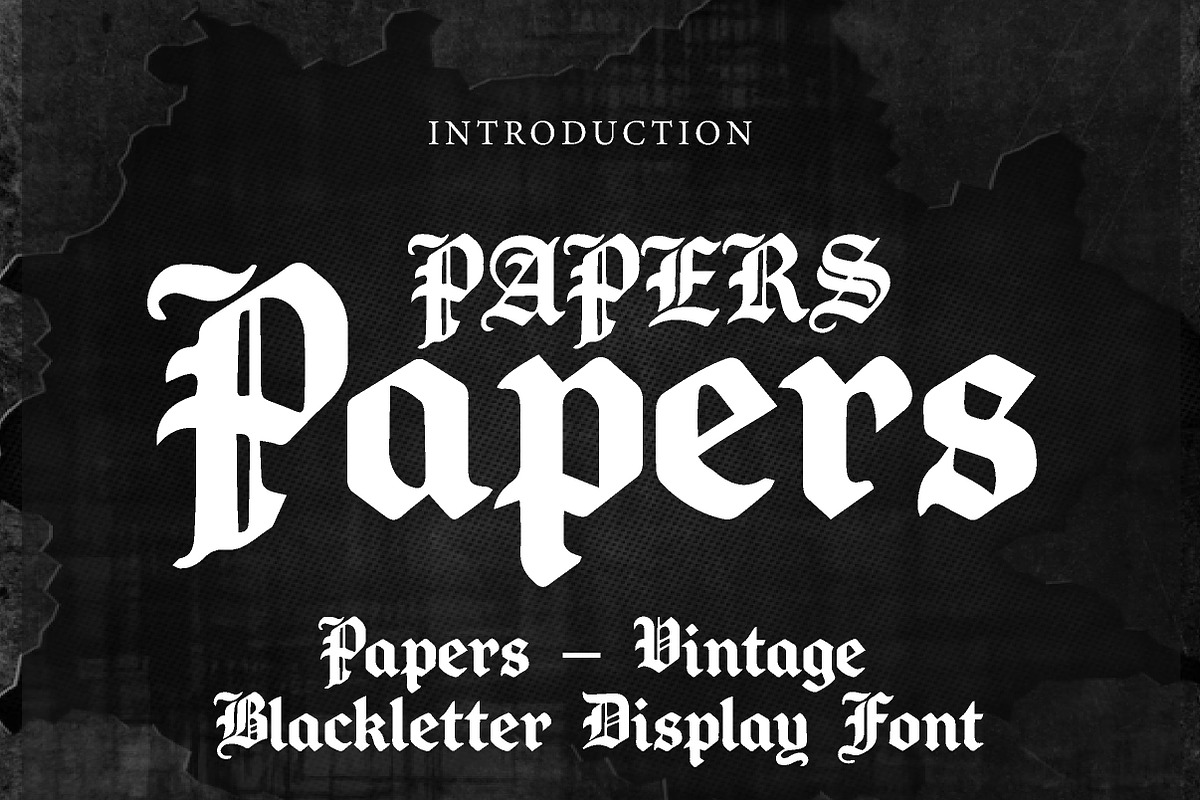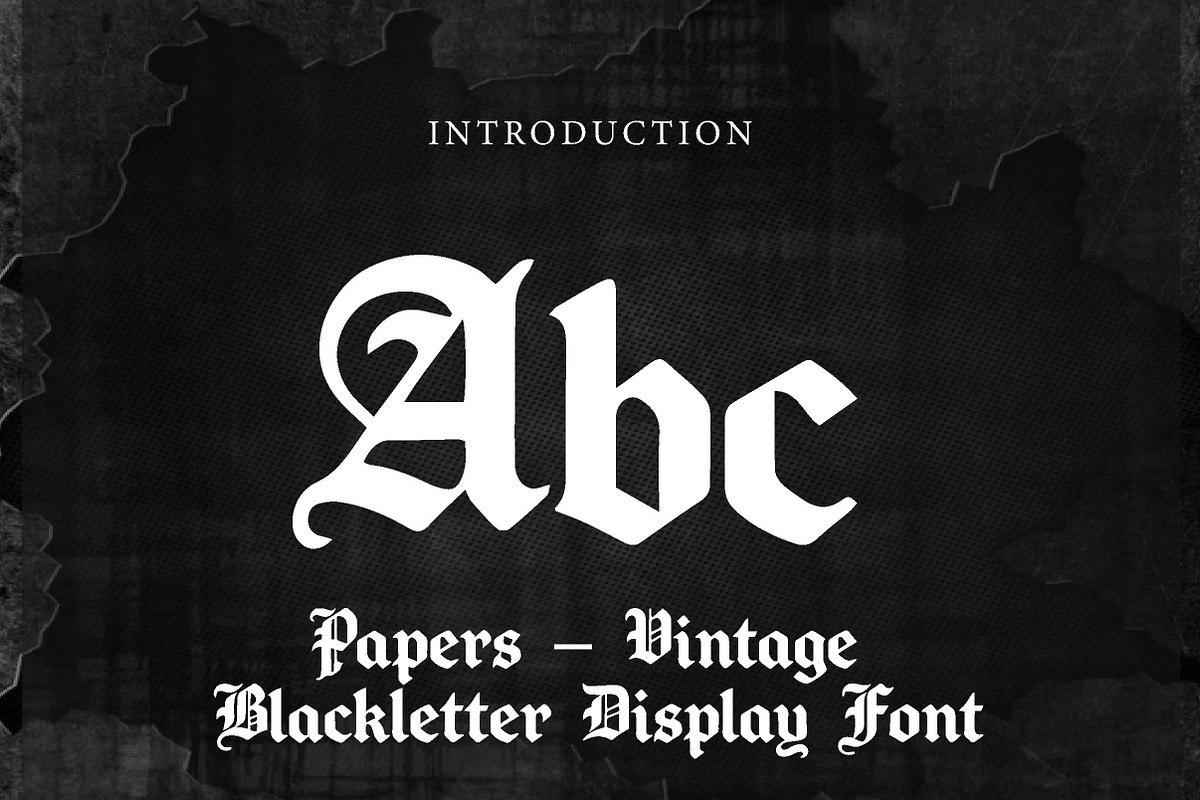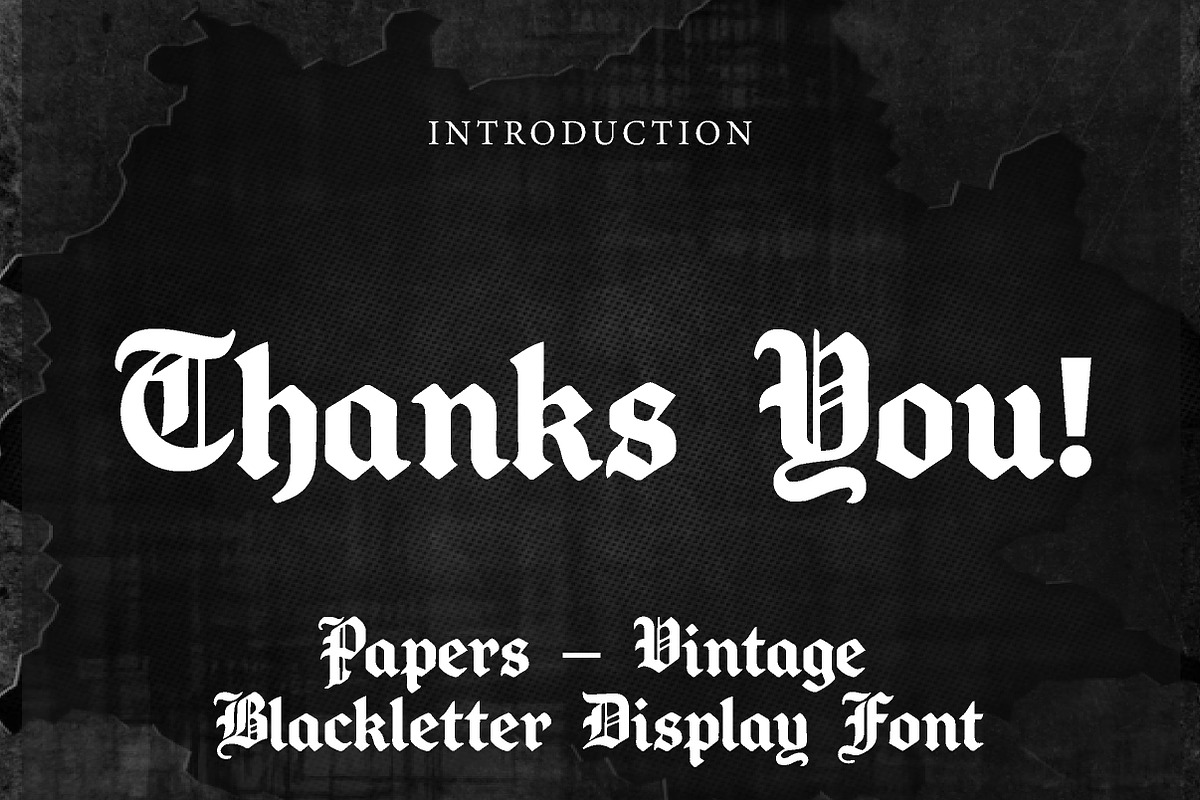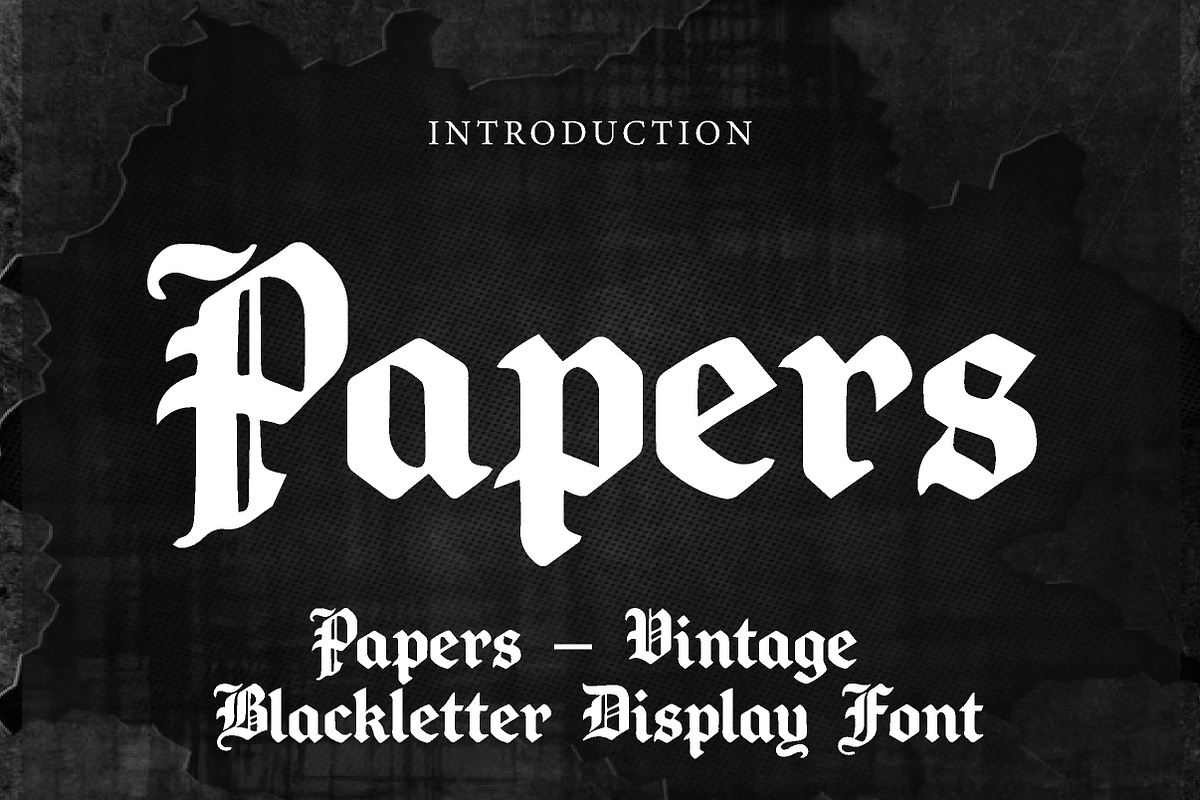
Papers
Papers – Vintage Blackletter Display Font
Papers is a bold and dramatic blackletter display font with a vintage gothic feel, perfect for logos, editorial titles, posters, branding, and statement-making creative projects.
Papers is a striking blackletter display font designed to bring drama, heritage, and strong visual character into your designs. With its sharp angles, bold strokes, and classic gothic-inspired letterforms, this font creates a powerful and unforgettable look that instantly stands out.
Its vintage and ornamental style makes Papers ideal for projects that need a bold historical or old-world aesthetic. Whether you are creating editorial headlines, logo concepts, poster designs, album covers, apparel graphics, packaging, or branding materials, this font helps your typography feel rich, artistic, and full of authority.
The decorative blackletter structure gives Papers a timeless personality while maintaining a solid visual impact for modern design work. Suitable for both print and digital use, this font is a great choice for designers who want a typeface that feels classic, edgy, and highly distinctive.
Perfect For Vintage and gothic branding Editorial and newspaper-style titles Posters and headlines Album and cover designs Apparel and merchandise Logo design Packaging concepts Tattoo-inspired graphics Event and festival visuals Statement display typography Font Features Uppercase letters Lowercase letters Numbers & punctuation Vintage blackletter style Bold and dramatic character Sharp decorative details Perfect for display use